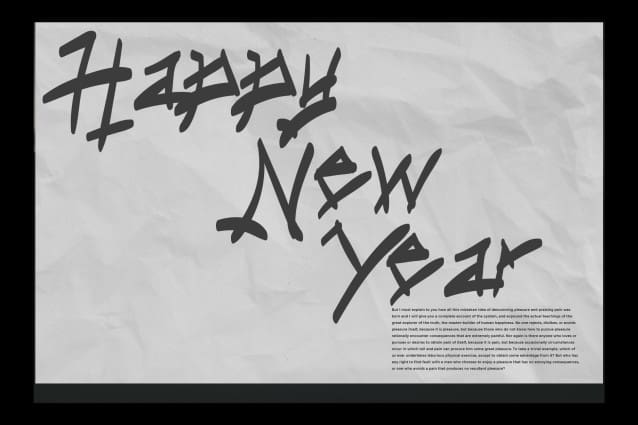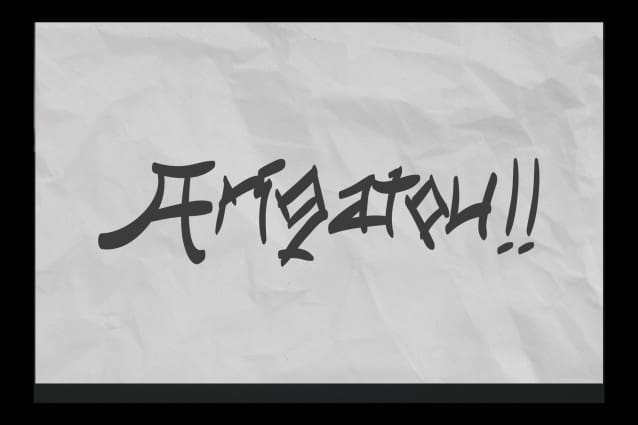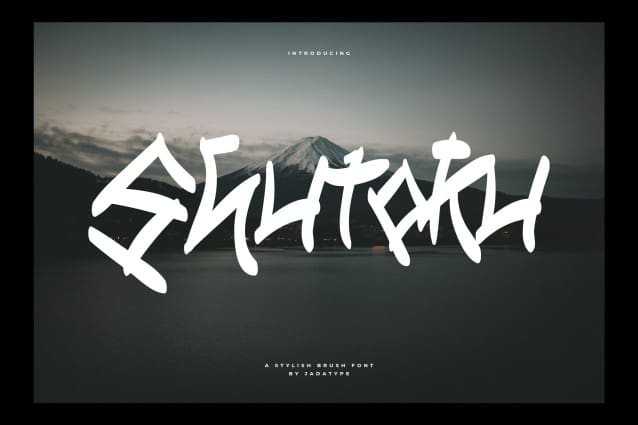
Shutoku Brush Font
Shutoku Brush Font is a display font that gives the impression of a stylish brush. suitable for supporting your graphic design, social media, clothing design, events and so on. contains standard english letters and some that support multilingual.